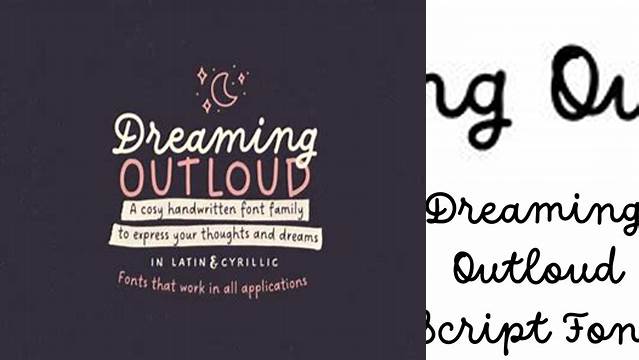
Hey everyone! Let's dive into the world of typography and get our hands on something super cool: the Dreaming Out Loud font! This guide will walk you through everything you need to know, from where to get it for free to how to use it like a pro. Whether you're a designer, a blogger, or just someone who loves cool fonts, this is for you. Get ready to unleash your creativity! Dreaming Out Loud is more than just a font; it's a statement. It's about expressing yourself, your ideas, and your personality. Let's explore this amazing font together.
Dreaming Out Loud Font: What Makes It Special?
Alright, so what's the big deal about the Dreaming Out Loud font, right? Well, for starters, it's got this awesome all-caps design that just screams attention. It's perfect for headlines, titles, and anything you want to make pop. The font's regular style gives it a clean, readable look, which is super important. Imagine using a font that's hard to read – no good! This font balances style and functionality perfectly. The unique thing about this font is how it is created, the font features different kinds of styles. It adds a creative look, and it can bring out the different kinds of looks you want, such as a poster design, invitation, even a logo. Plus, and here's the kicker, you can get it for free! Yep, you heard that right. We're talking about a professional-looking font that won't cost you a dime. This means you can use it for personal projects, commercial projects, and all sorts of creative endeavors. So, whether you're creating a website, designing a flyer, or just messing around with some cool graphics, this font is your new best friend. Its versatility is what makes it stand out. It can be used in multiple kinds of projects without having to worry about the font not being the right fit. The font features different types of sizes, so it is very flexible for any type of project.
Decoding the Dreaming Out Loud Aesthetic
Let's break down the vibe of the Dreaming Out Loud font, shall we? It's got this modern, yet approachable feel that's hard to ignore. Think sleek lines, a bold presence, and a touch of artistic flair. It's the kind of font that commands attention without being overly complicated. This font is really created in a way that it represents and is suitable for various types of creative projects. From branding to social media, its stylish simplicity is its biggest strength. Because of its simplicity, this font is usable in many kinds of platforms. Moreover, it is created in a way that is very friendly for the eyes and can be used for long-reading text. This font is not just about the letters themselves; it's about the overall visual impact. It is designed to capture the essence of a dreamy state and convey it to the audience. That means the font is more than just letters; it's also the visual story it tells. Also, this font is great for creating an aesthetic that is very appealing for many kinds of users. So, it's like a chameleon that changes its appearance according to the project, so it is very versatile.